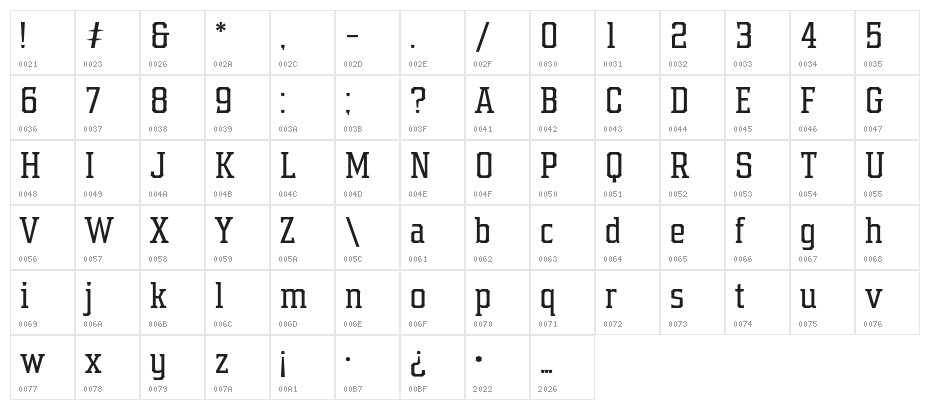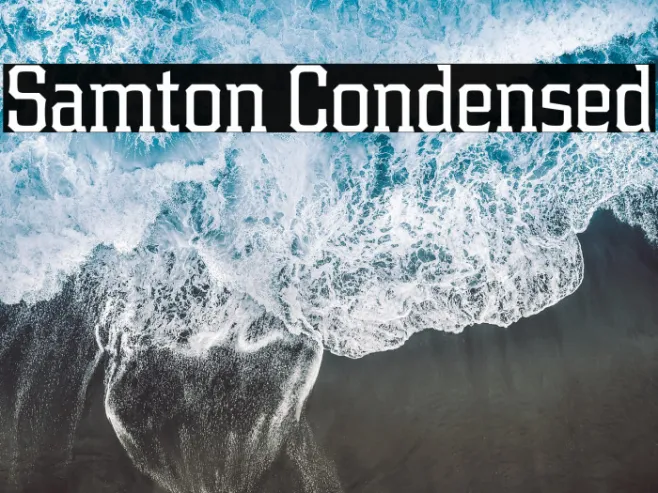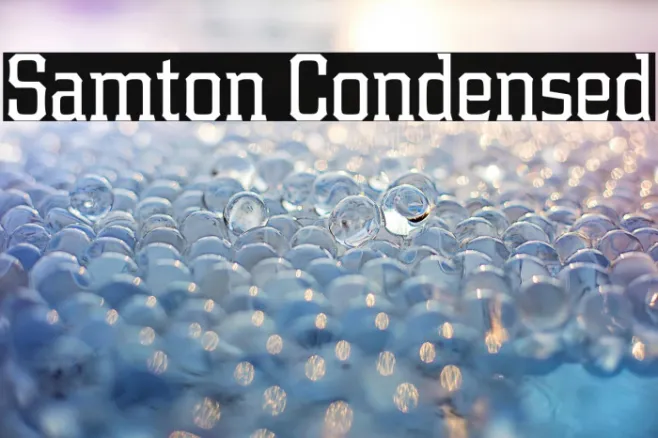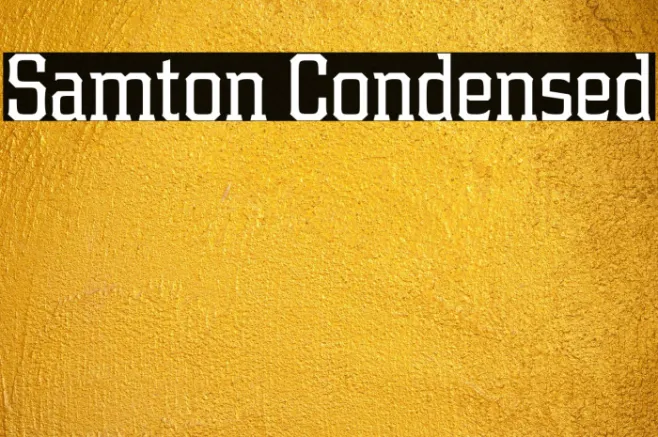
Samton Condensed Font
Samton Condensed Description
This font features a condensed and structured design, characterized by its bold and angular letterforms. The uppercase and lowercase letters maintain a consistent height, contributing to a uniform appearance. The numerals are distinct and easily readable, while the special characters are designed to match the overall geometric style. The font's condensed nature makes it suitable for space-saving applications, while its boldness ensures visibility and impact.
| Proposed Projects | Ideal for headlines, posters, and branding projects where a strong, impactful presence is needed. |